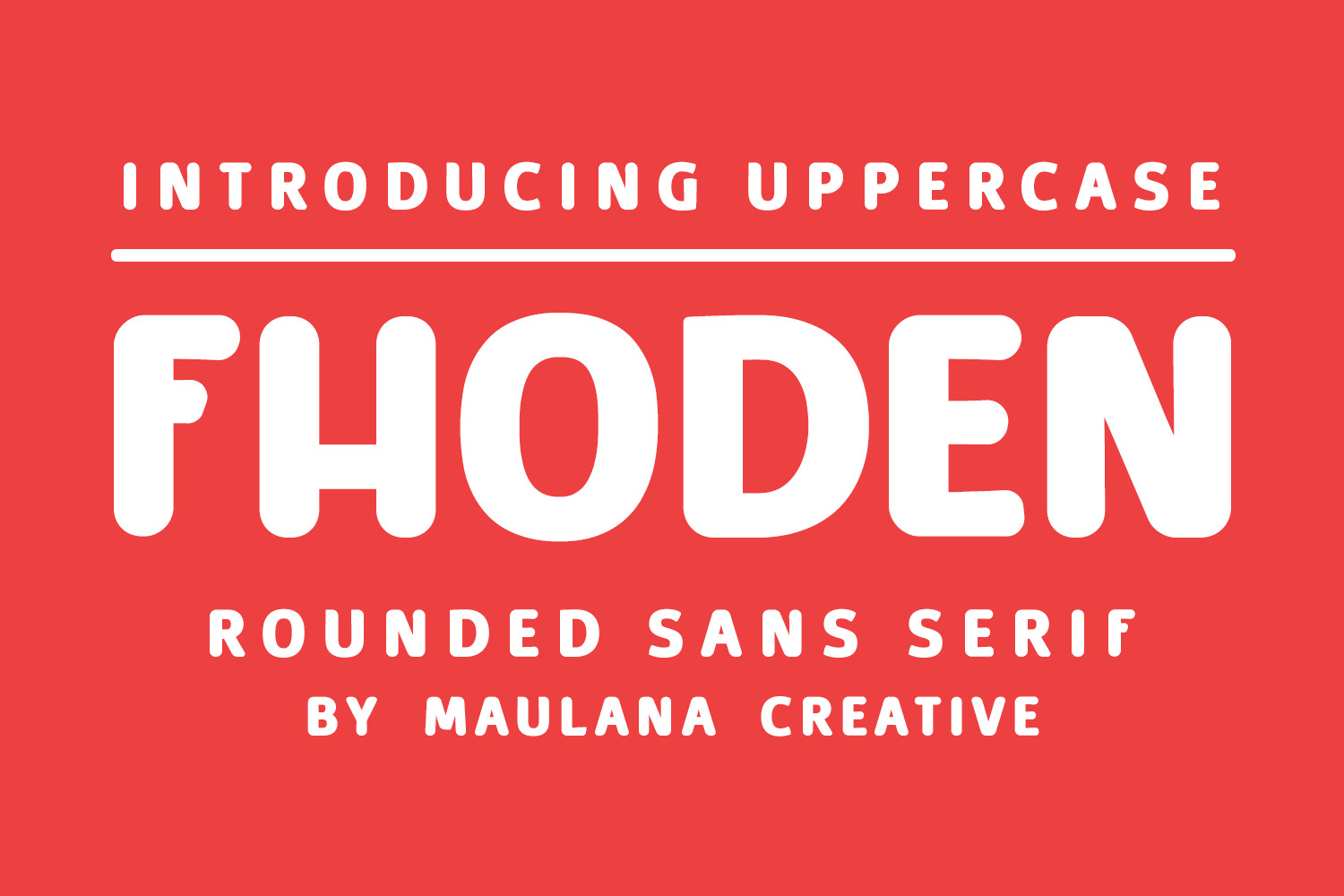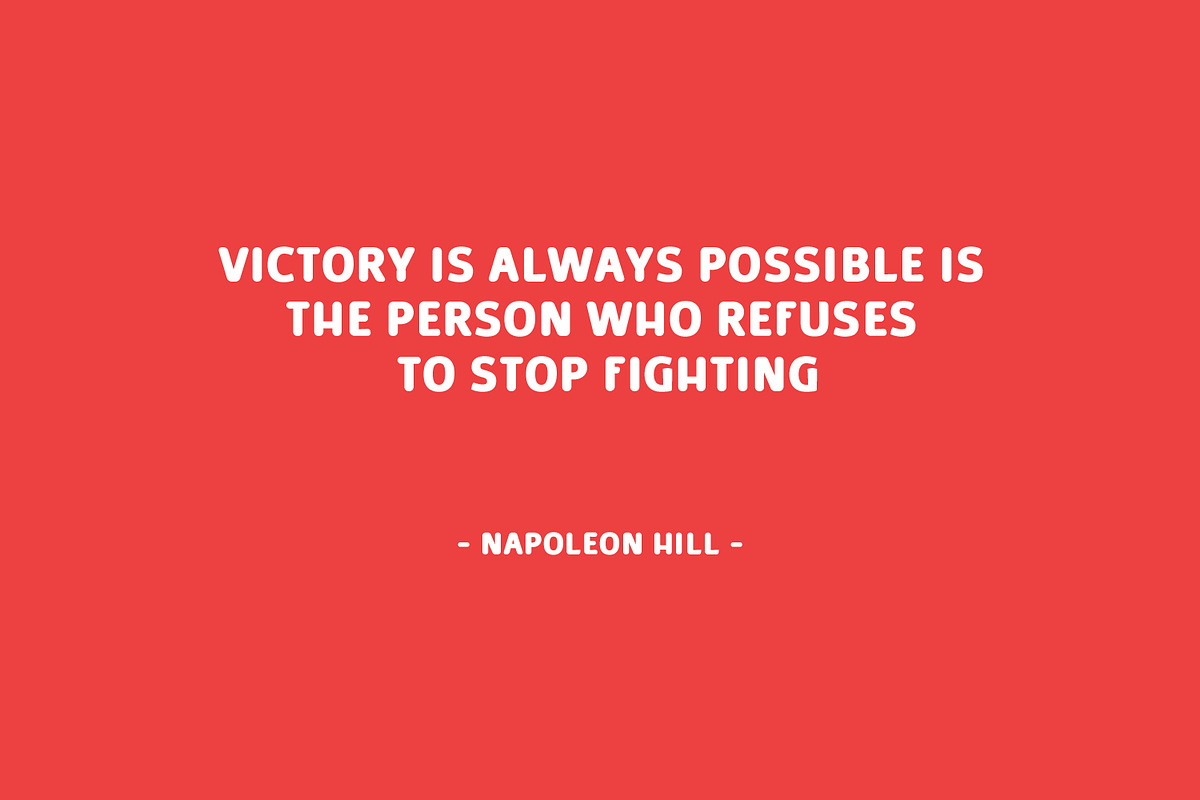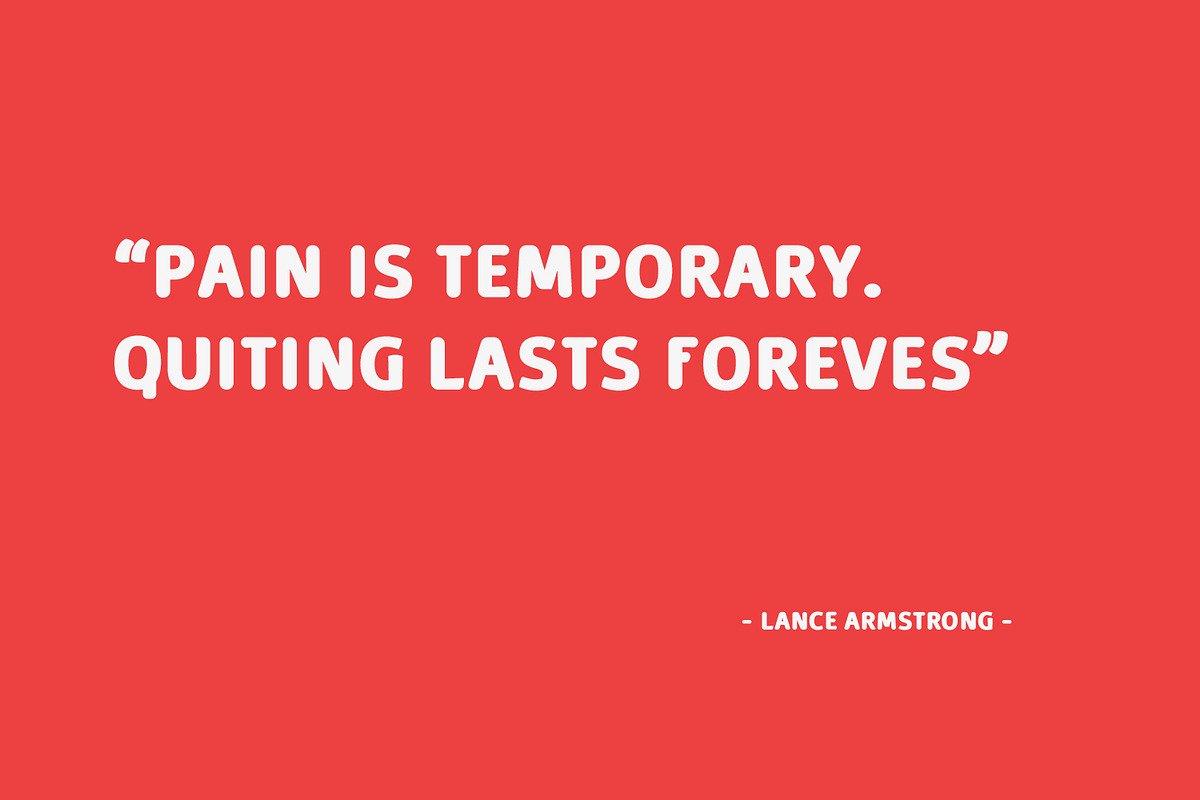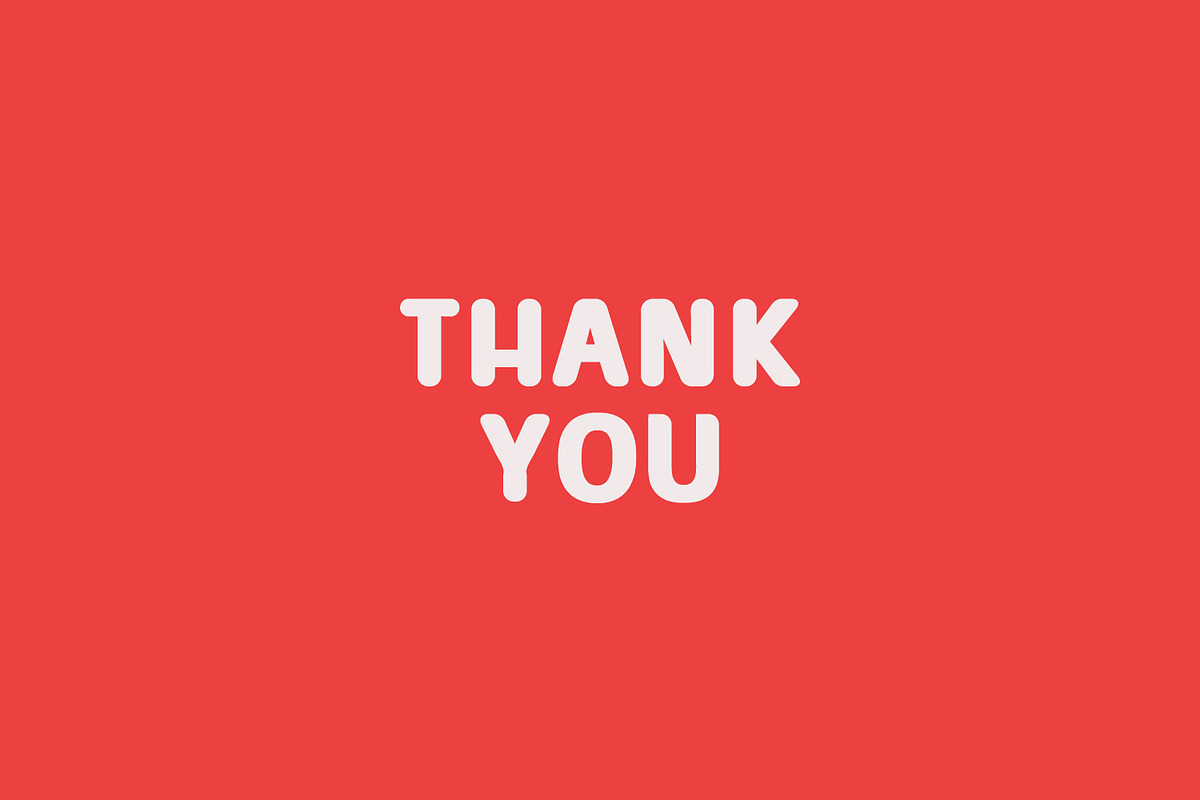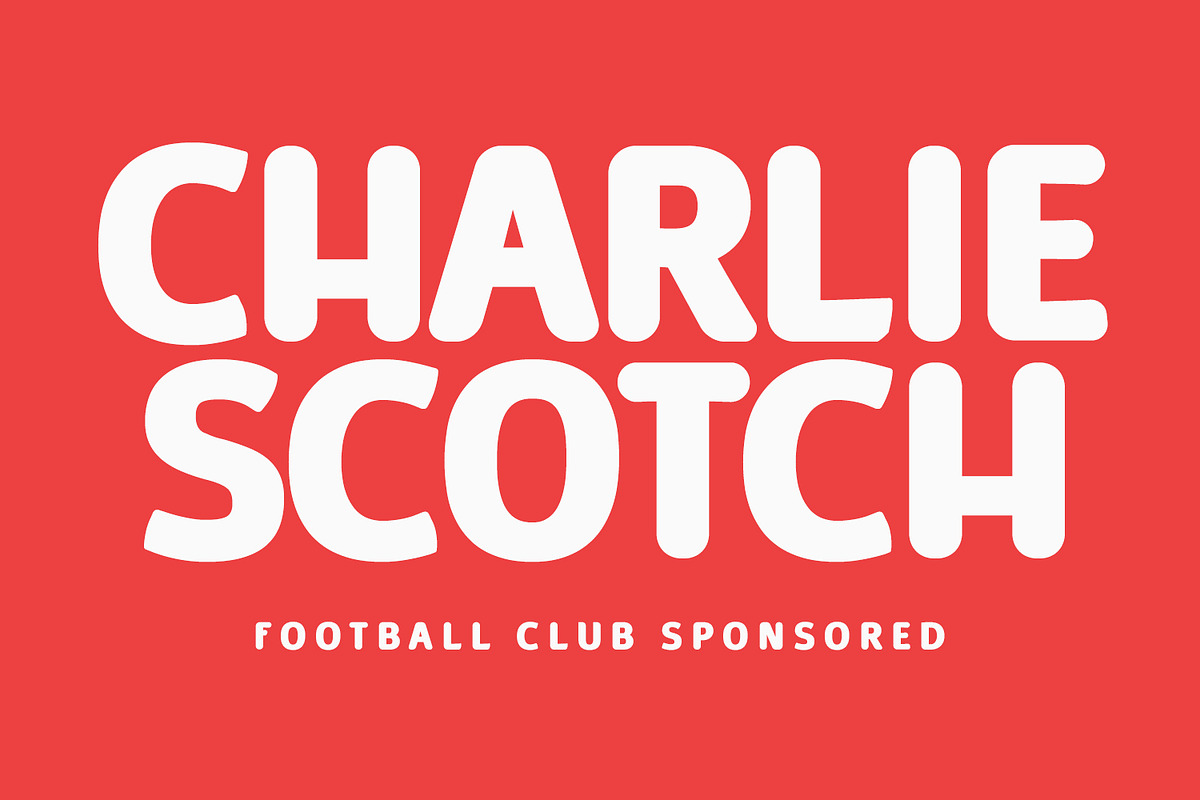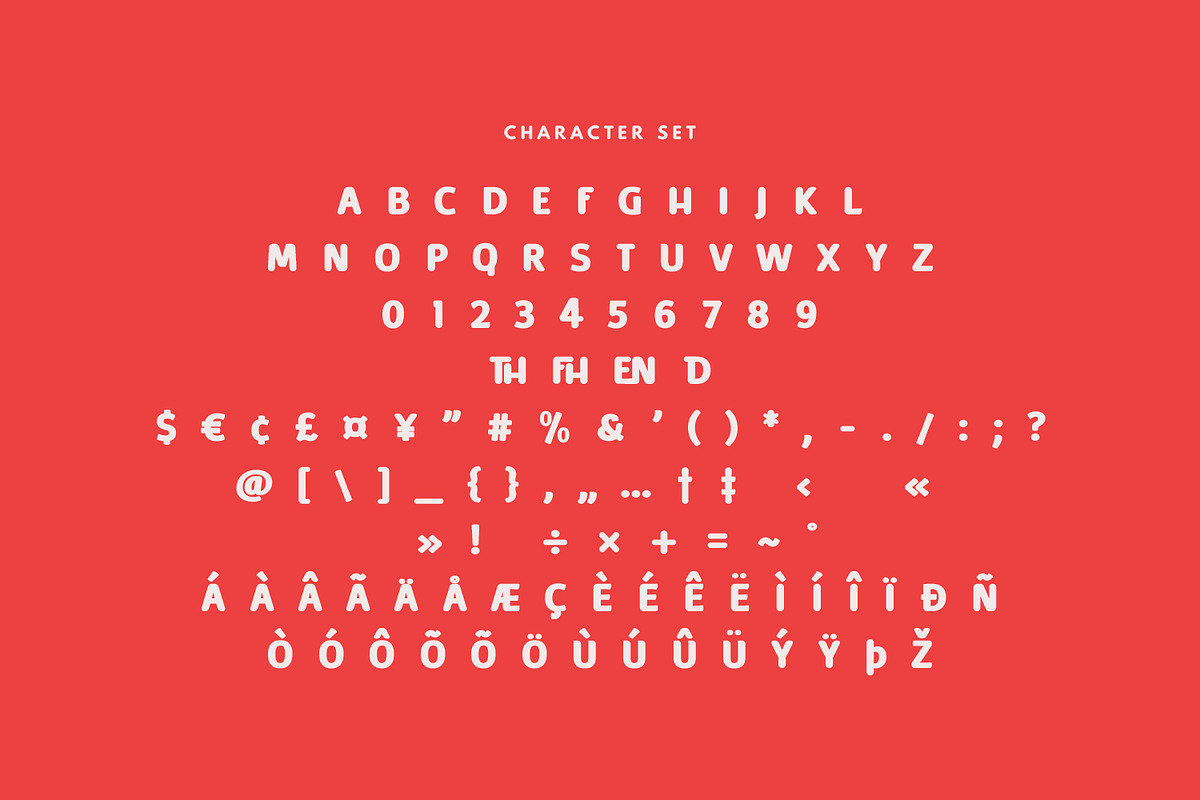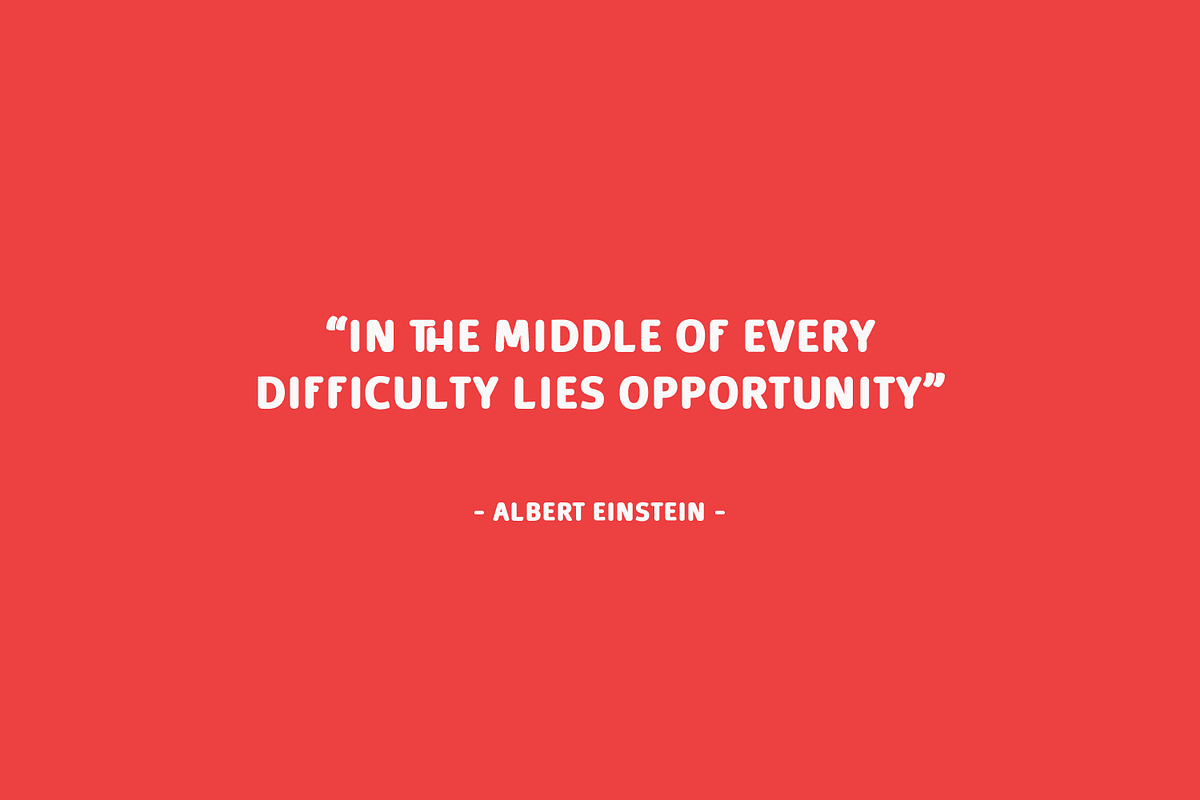
Fhoden Rounded Sans Serif Font
Fhoden is a fancy modern rounded all Caps sans serif font. With bold tall and rounded stroke, fun character with a bit of ligatures and alternate. To give you an extra creative work. Fhoden font support multilingual more than 100+ language. This font is good for logo design, Social media, Movie Titles, Books Titles, a short text even a long text letter and good for your secondary text font with sans or serif. Make a stunning work with Fhoden font.